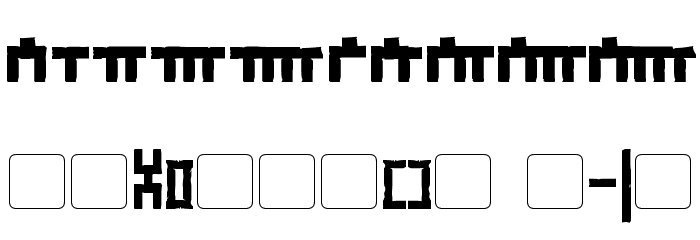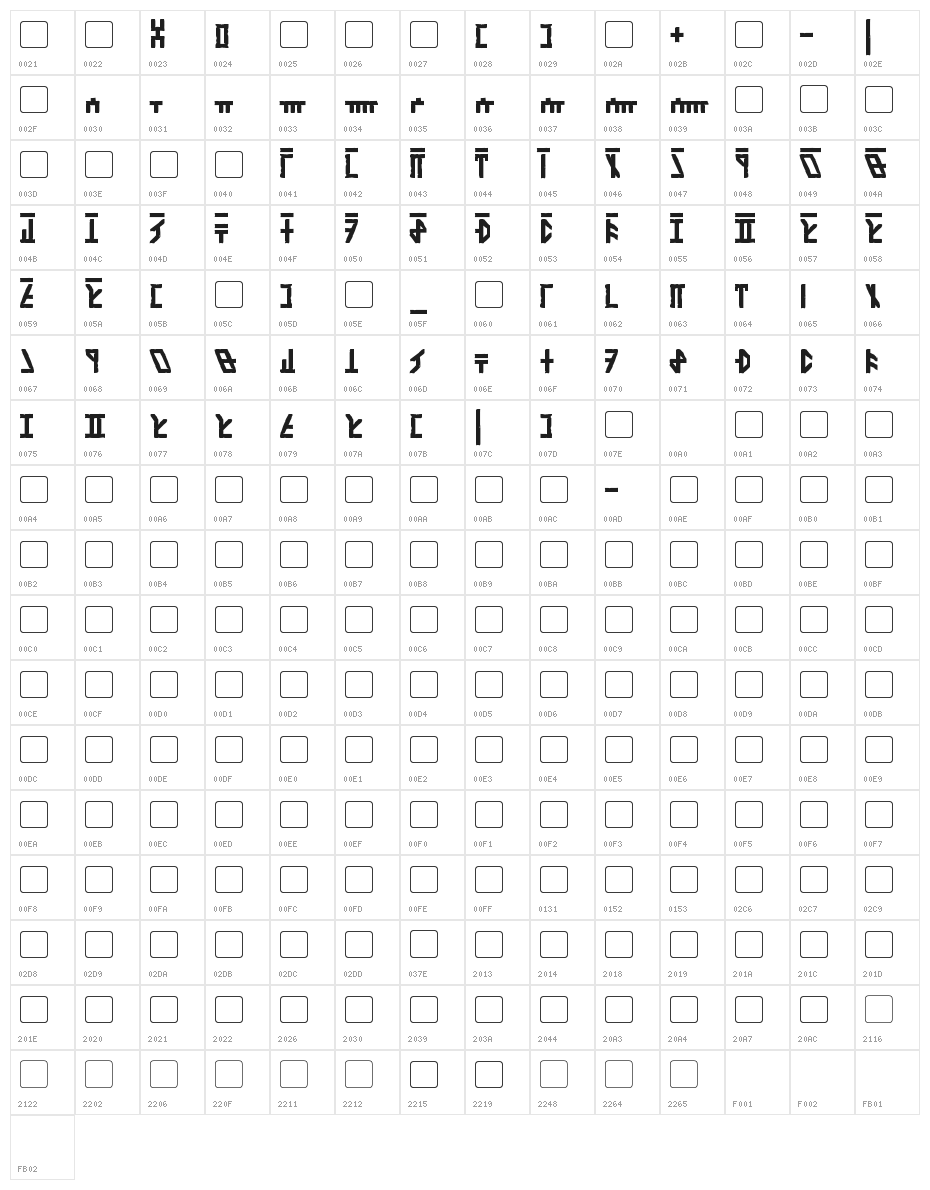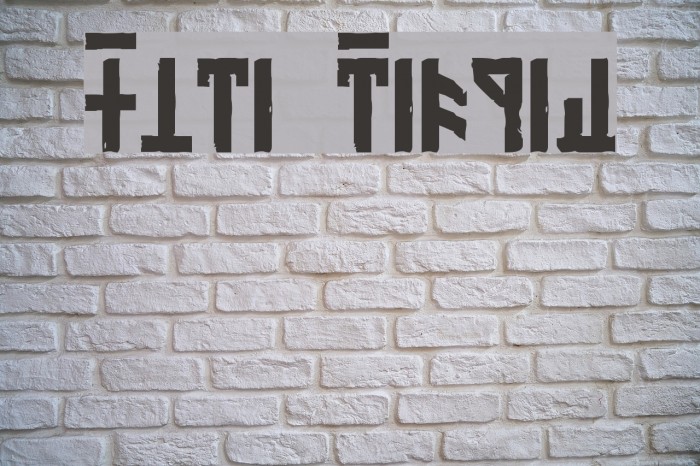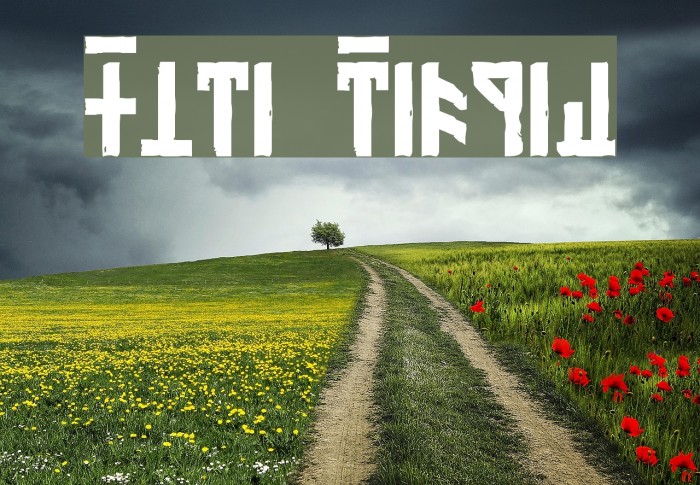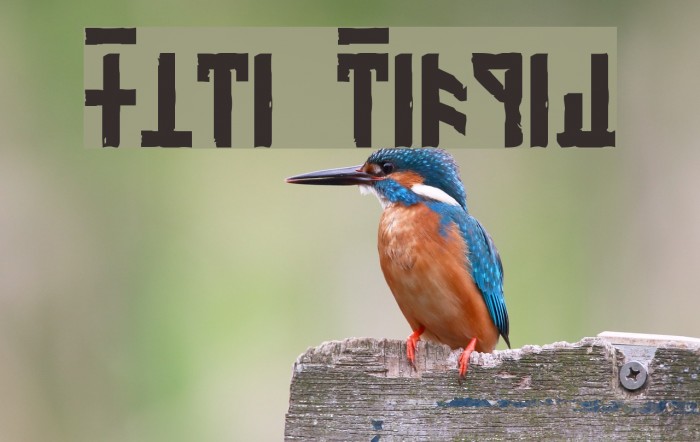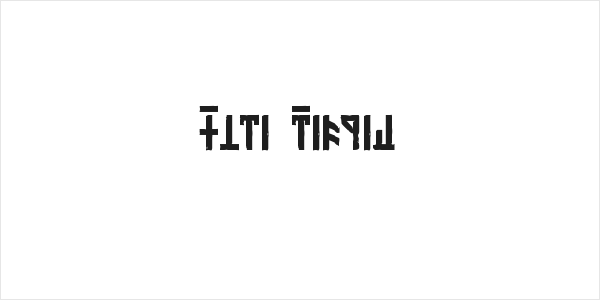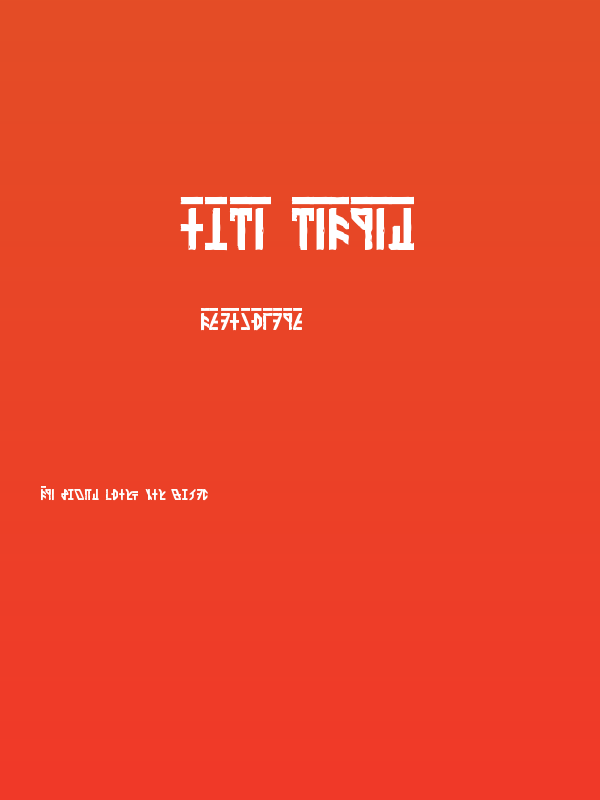
Olde Dethek Font
Olde Dethek Description
This font features a bold, angular design reminiscent of ancient runic scripts. The characters are constructed with thick, straight lines and sharp angles, creating a rugged and sturdy appearance. The uppercase and lowercase letters share a similar structure, emphasizing uniformity and consistency. Numbers and special characters maintain the same bold and angular style, ensuring a cohesive look across all elements. The font's distinct style evokes a sense of mystery and antiquity, making it ideal for projects that require a historical or fantasy theme.
Overall StyleVintage
Proposed ProjectsIdeal for fantasy game titles, historical event posters, themed invitations, and book covers.